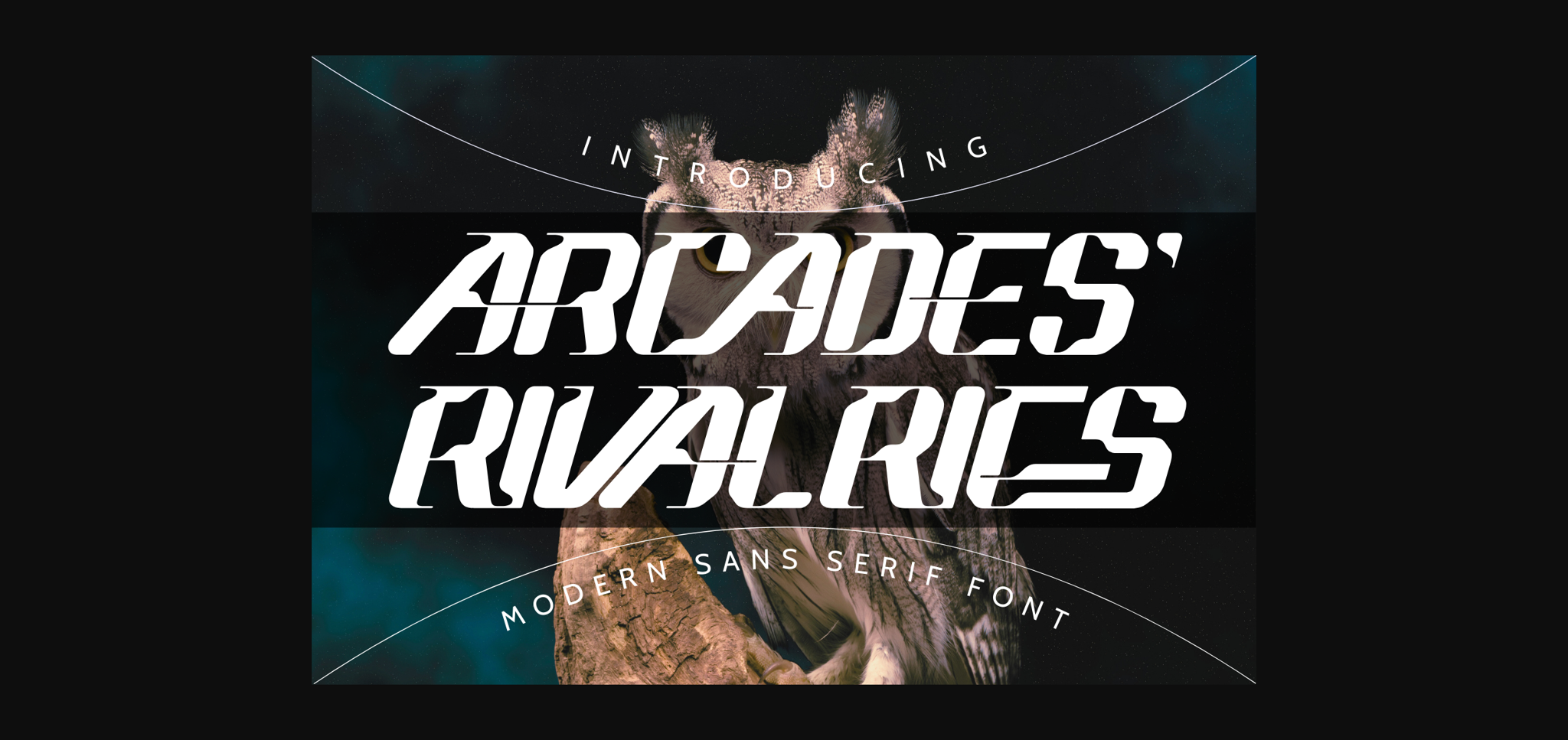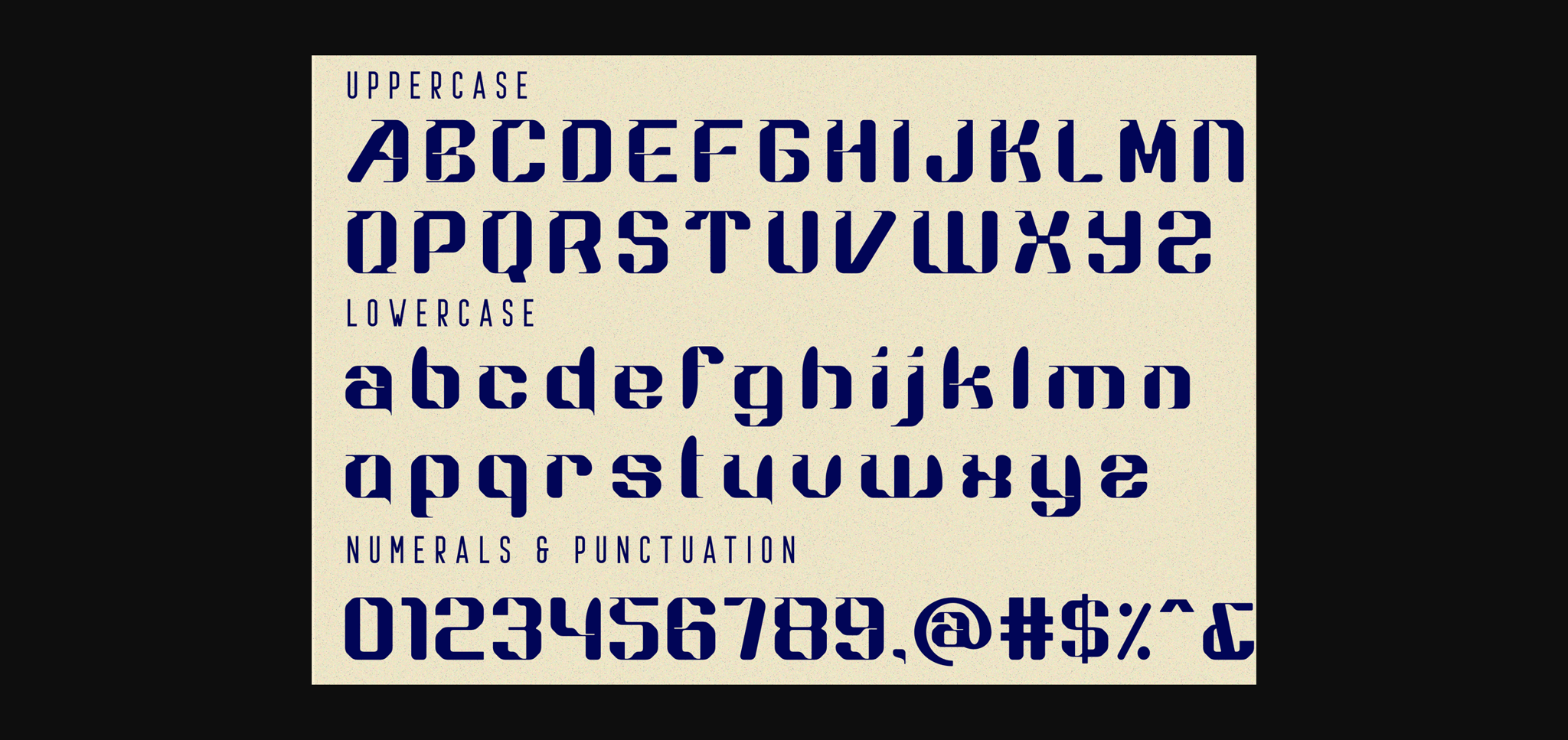
About Arcades Rivalries Font
Arcades Rivalries – Futuristic Sci-Fi Font. It’s a hi-tech logo inspired font with unique and futuristic looks. With sans based, this font also including ligatures that you can use for more options for your logo project. You can use this font for logo, movie poster, and futuristic event, game / gaming industry, sport racing, super car brand, esport branding, music poster, website design, modern advertising design, poster quote, book/cover title, special events and many more.